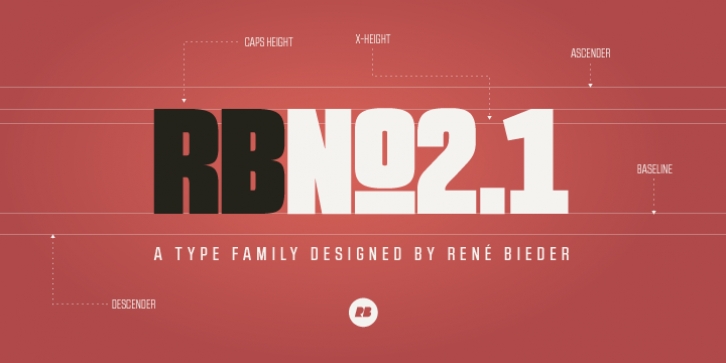
RBNo2.1 is a condensed sans serif typeface with a technical and geometric appearance. The family includes 2 versions (RBNo2.1a and RBNo2.1b) and has 7 weights with matching italics.
RBNo2.1 feels comfortable in technical surroundings with short text passages, in brochures, catalogs, magazines, posters, websites headlines and logos.